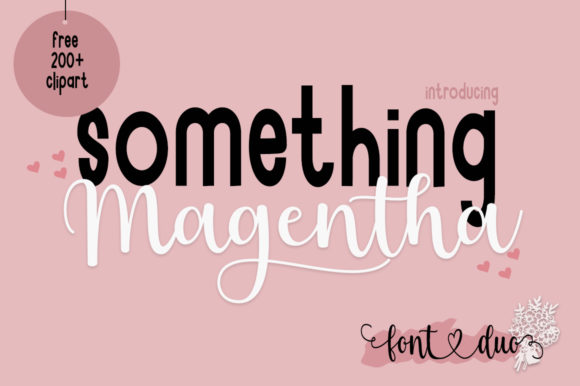
In the realm of typography, where letters dance and words take flight, there exists a font that captures the essence of enchantment and grace - Something Magentha. This meticulously crafted duo font, a harmonious blend of handwritten and sans serif, invites you to embark on a journey of creativity and self-expression.
With its delicate strokes and elegant curves, Something Magentha dances across the page like a ballerina, leaving a trail of beauty in its wake. The handwritten font exudes a sense of intimacy and charm, while the sans serif counterpart provides a touch of modernity and sophistication. Together, they create a visual symphony that captivates the senses and ignites the imagination.
Immerse yourself in the world of Something Magentha, where your words are transformed into works of art. Craft enchanting invitations, design captivating logos, or create personalized gifts that leave a lasting impression. Let your creativity soar as you explore the endless possibilities that this versatile font duo offers.
But Something Magentha is more than just a font; it's an experience. It's a chance to connect with your inner artist and unleash your creative potential. Whether you're a seasoned designer or just starting your journey in the world of typography, Something Magentha will guide you every step of the way.
So, dive into the world of Something Magentha and let your imagination run wild. Create designs that captivate, inspire, and leave a lasting impression. Let your words dance across the page with elegance and grace, and let Something Magentha be your muse as you embark on a creative adventure like no other.